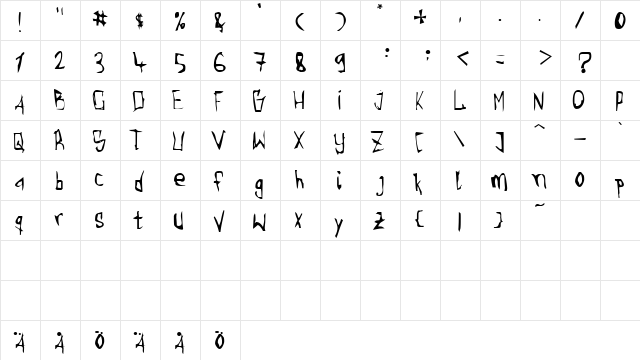
Torgny.. Regular
Design Context for Torgny.. Typeface
Torgny.. is a composed and adaptable typeface that performs quietly and consistently across a wide range of design contexts.